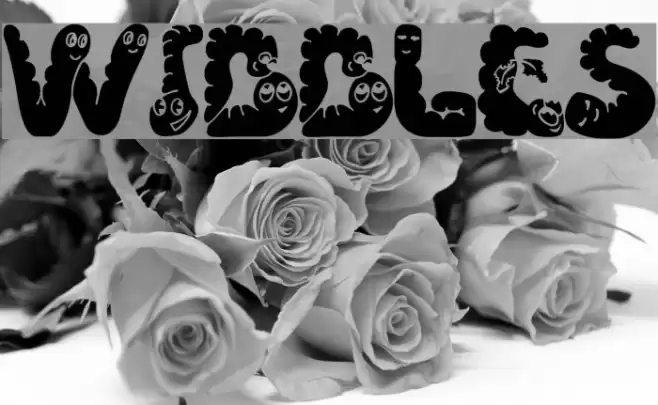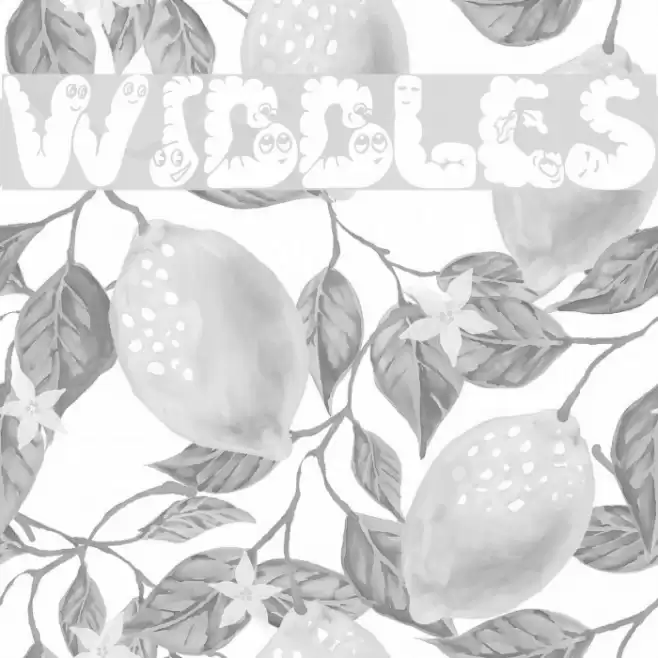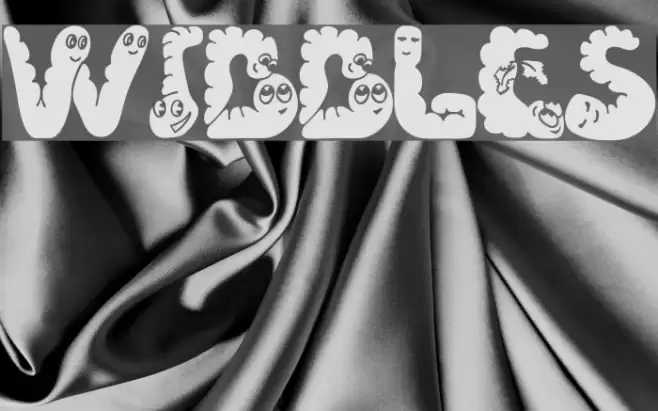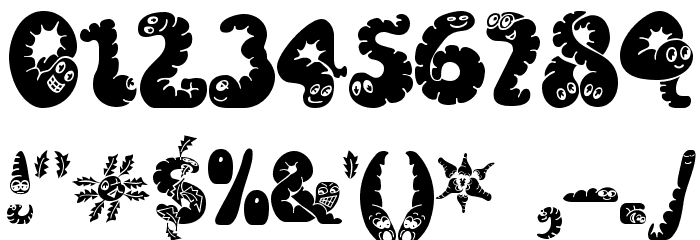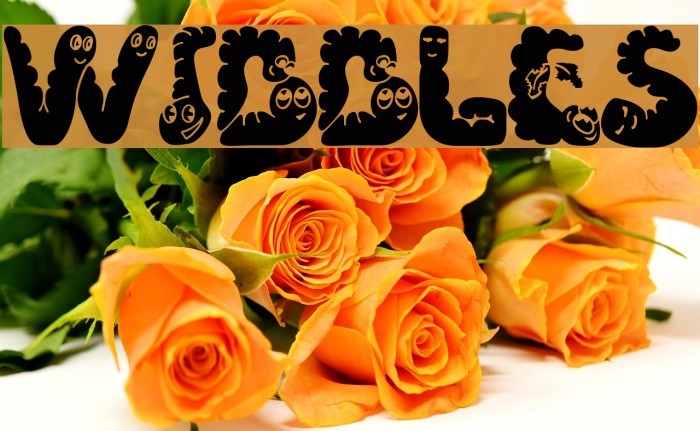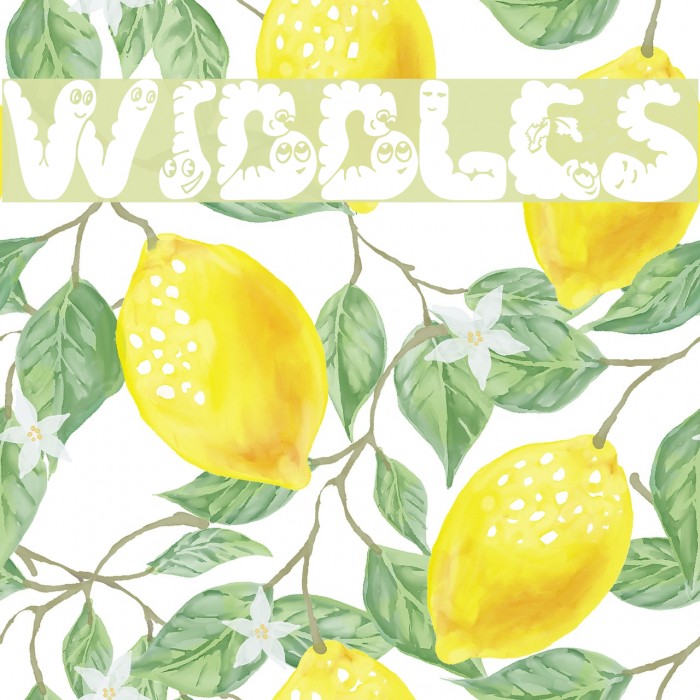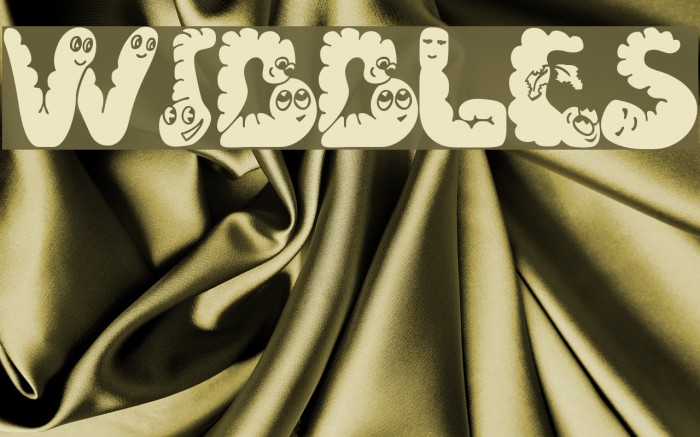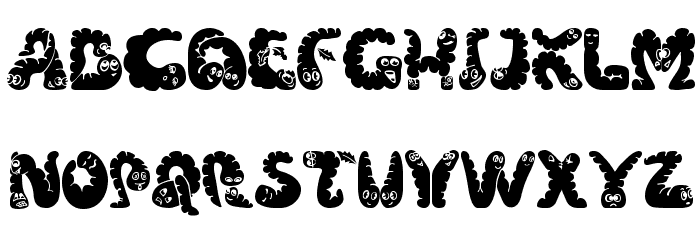
Wibbles Font
Wibbles Description
This playful and whimsical font features bold, rounded characters with quirky, cartoon-like eyes embedded within each letter and number. The design is highly decorative, with each character appearing as a unique creature, adding a sense of fun and creativity. The font is perfect for projects that require a lighthearted and imaginative touch. The characters are densely packed, creating a tight spacing that enhances the overall playful aesthetic. The font's high contrast in stroke thickness further emphasizes its bold and eye-catching style.
A playful, cartoon-like font with bold, rounded characters featuring quirky eyes from Decorative fonts.
- Proposed Projects: Ideal for children's books, playful branding, party invitations, and creative posters.
- Character Spacing: Tight
- Overall Style: Whimsical